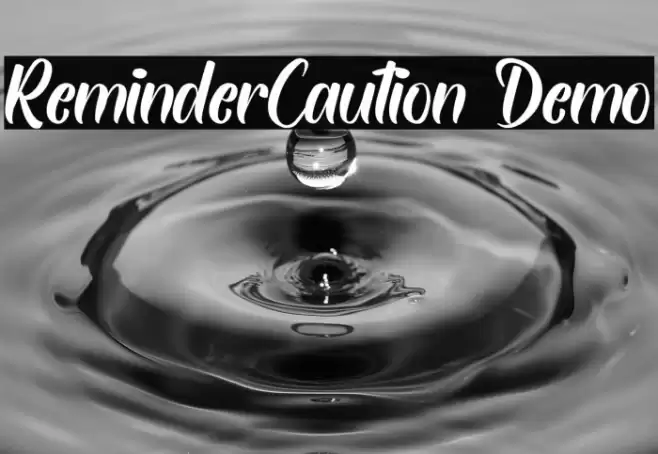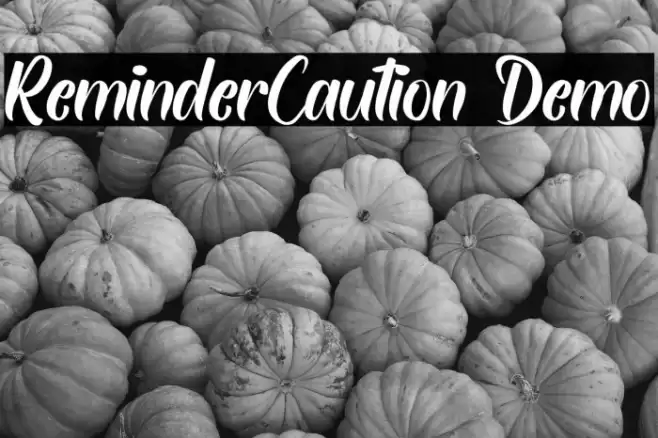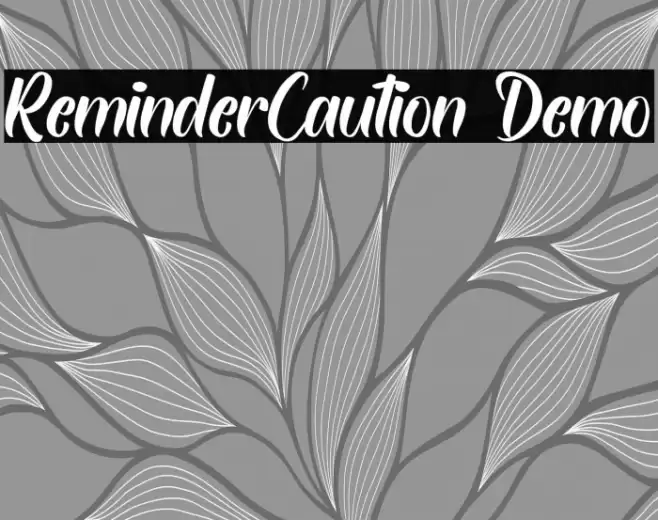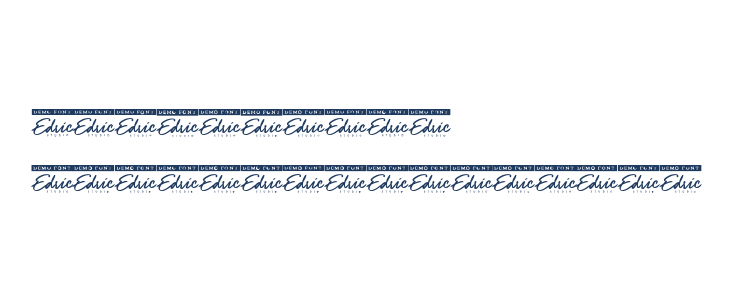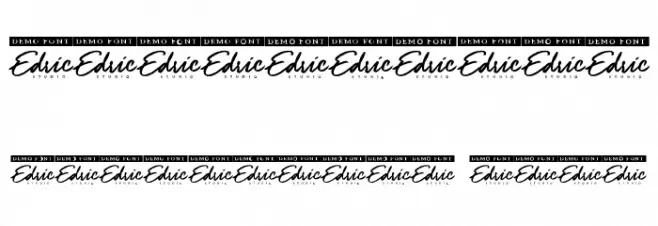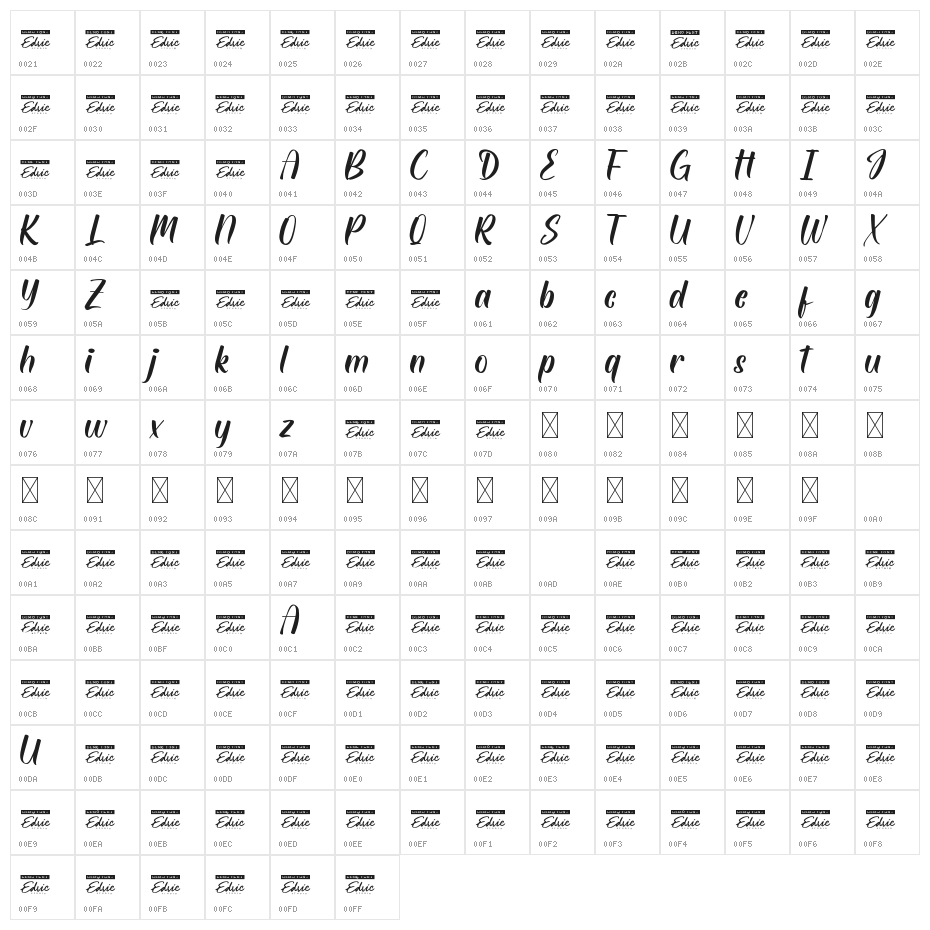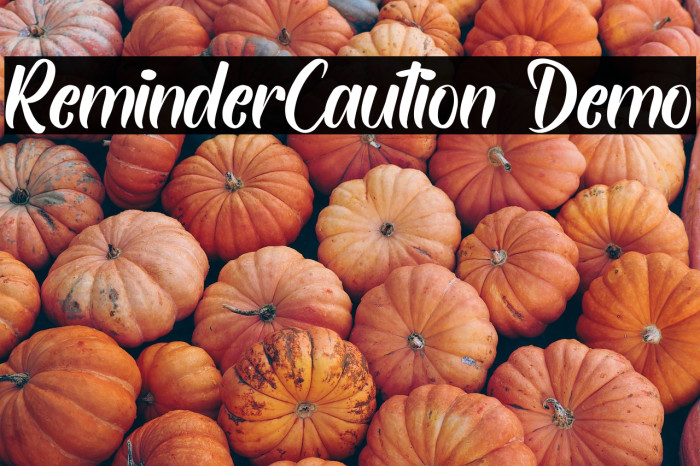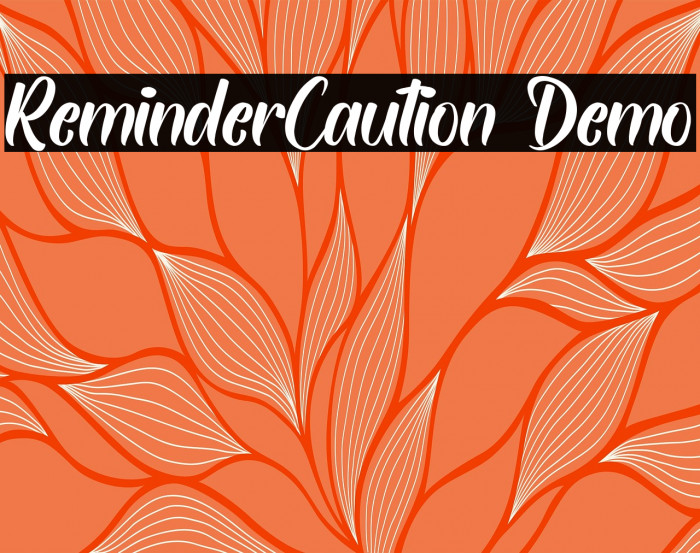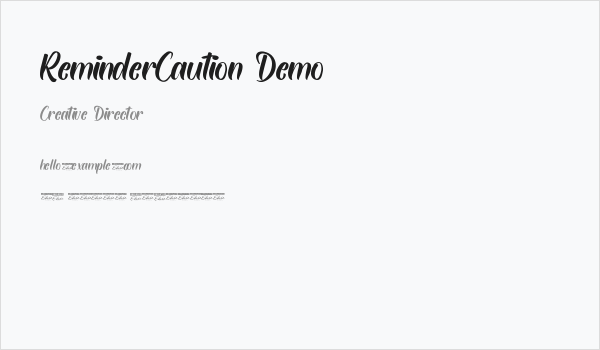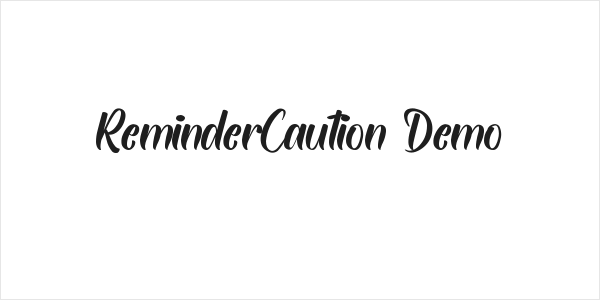
ReminderCaution Demo Font
ReminderCaution Demo Description
This font features a dynamic and flowing script style with a modern flair. The uppercase letters exhibit a sense of movement and elegance, characterized by smooth curves and varying stroke widths. The lowercase letters maintain a consistent style, offering a harmonious blend with the uppercase. The font's overall appearance is bold and expressive, making it suitable for creative and artistic projects. The characters are well-spaced, ensuring readability while maintaining a stylish look. This font is ideal for branding, invitations, and any design that requires a touch of sophistication and flair.
A bold and expressive script font with dynamic curves and modern elegance from Regular fonts.
- Proposed Projects: Ideal for branding, invitations, artistic projects, and any design needing a sophisticated touch.
- Use Case: Logos, Headlines, Invitations